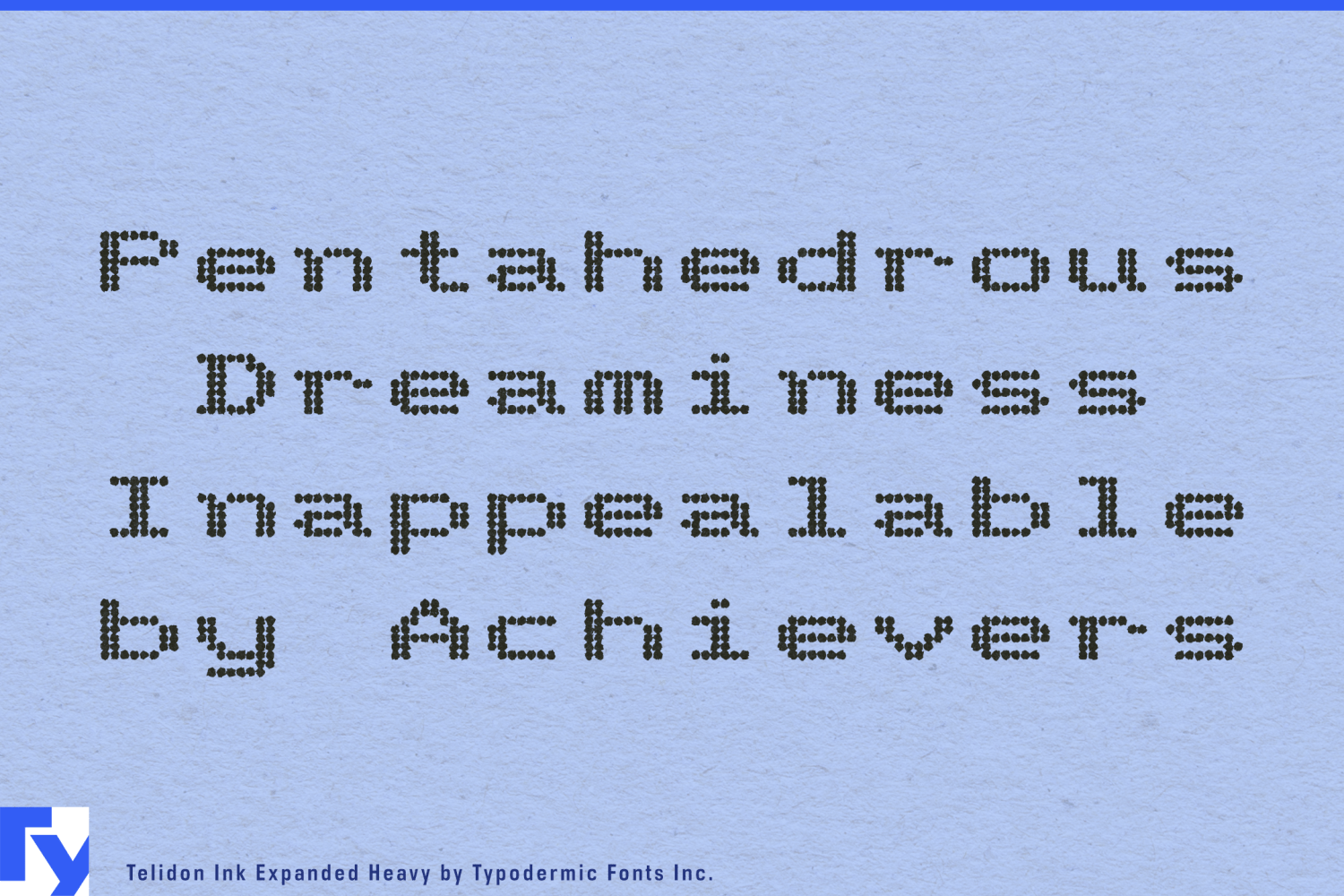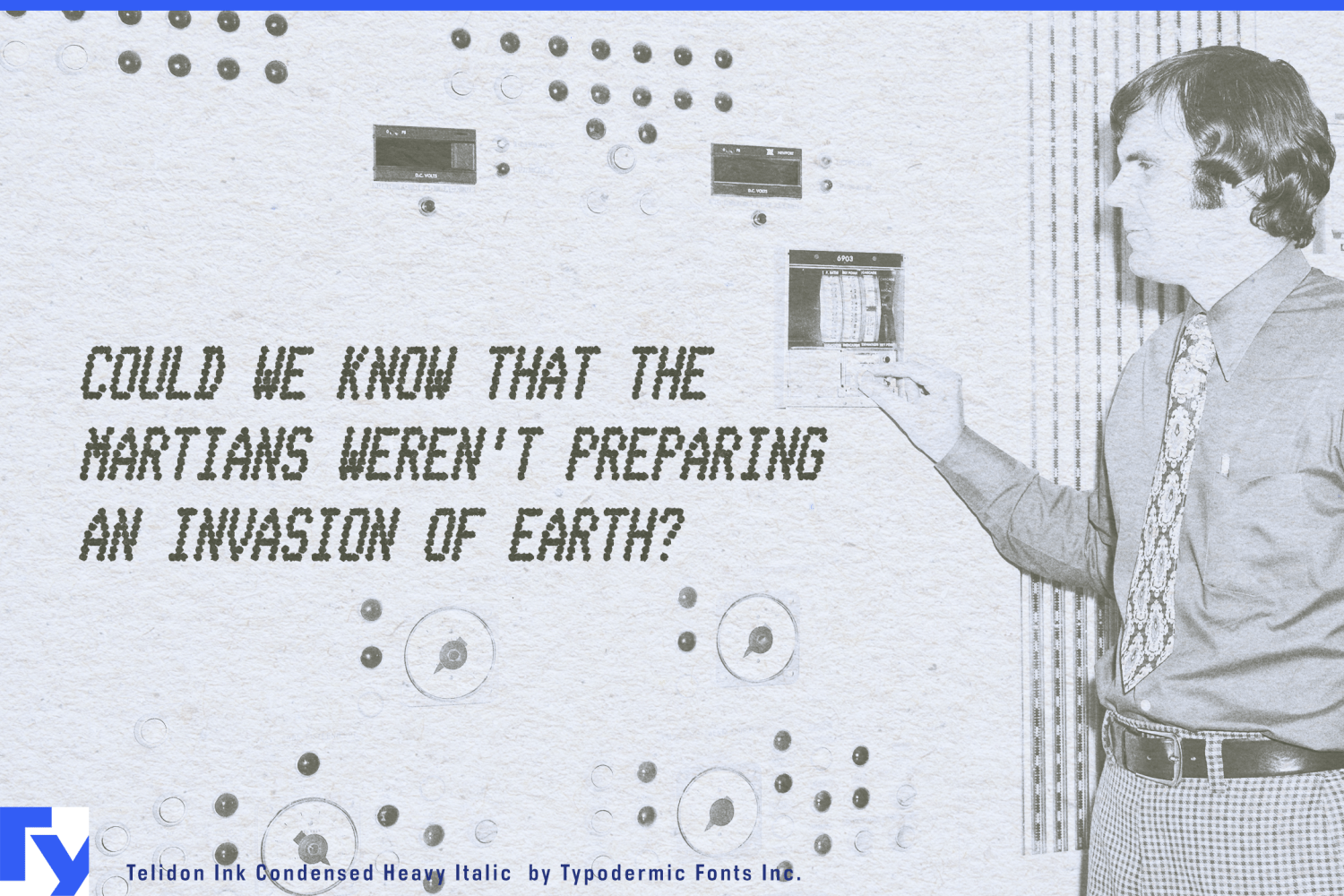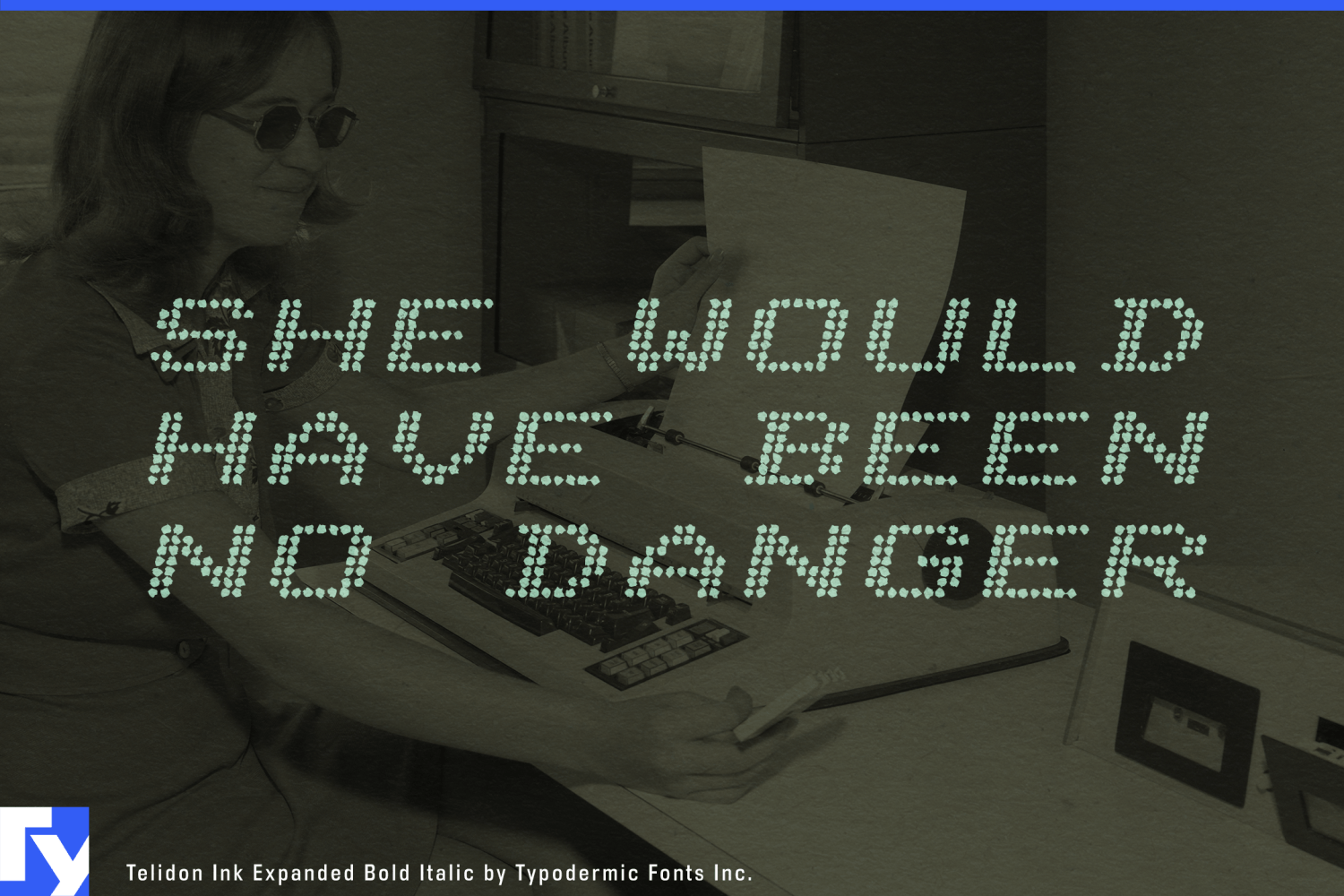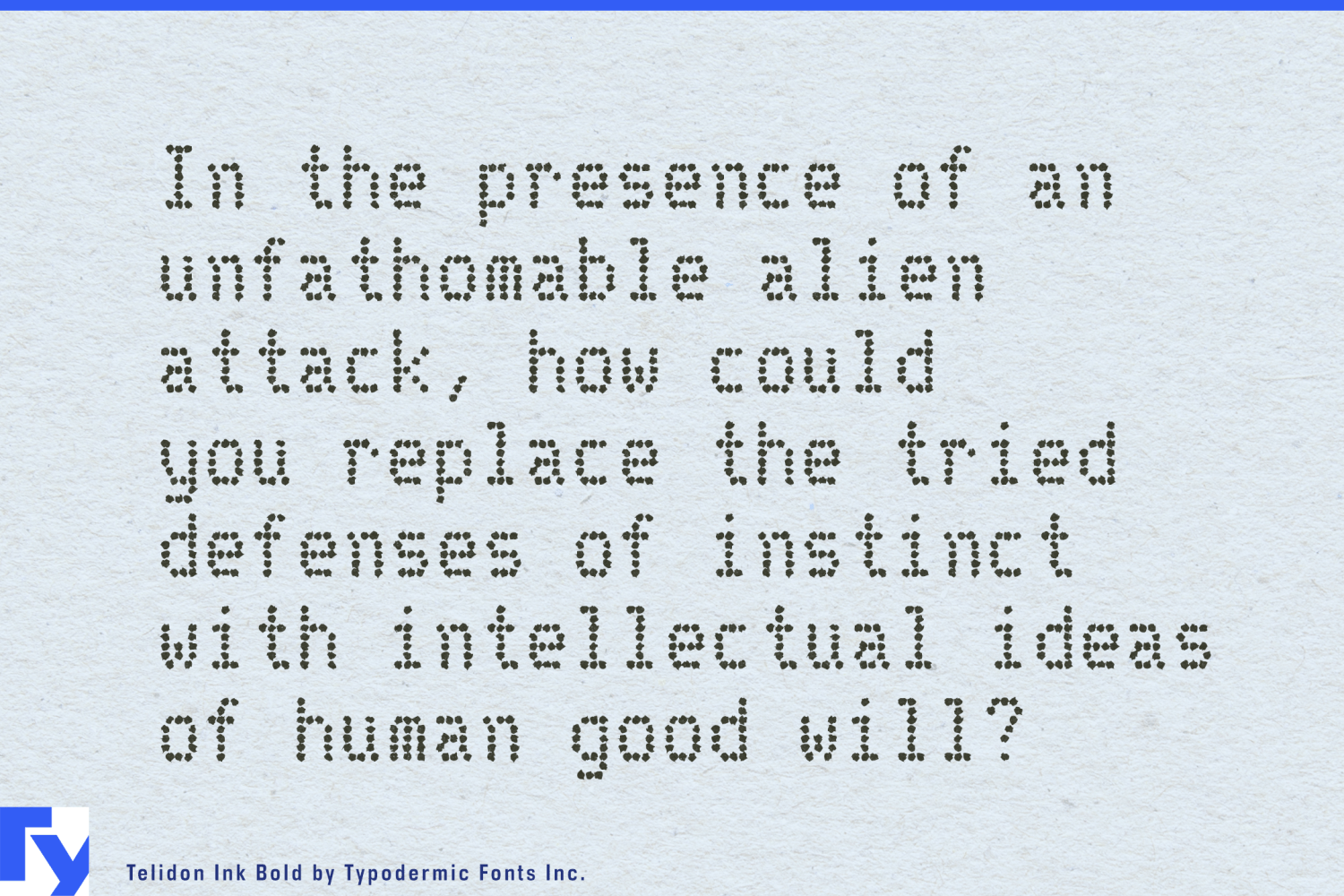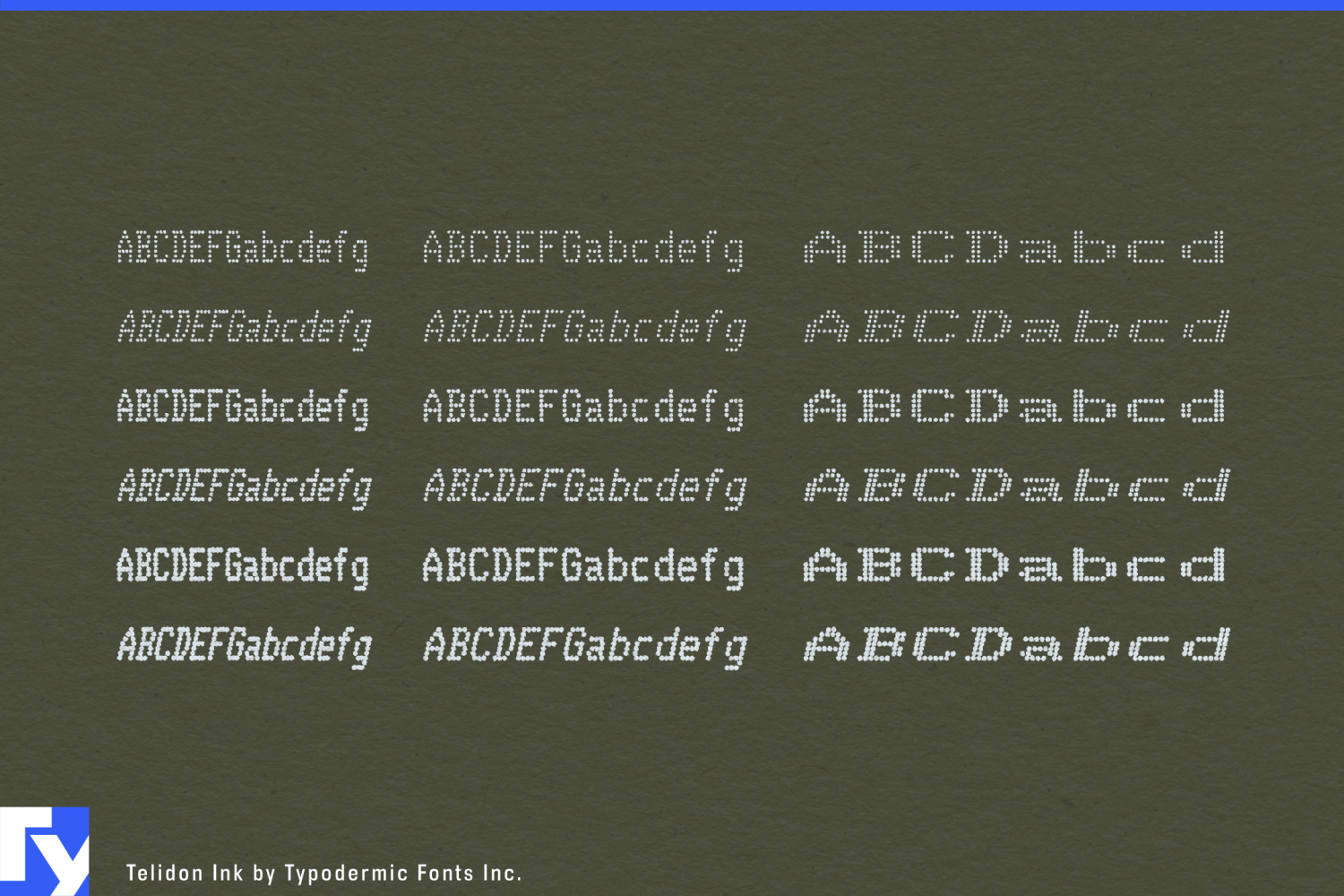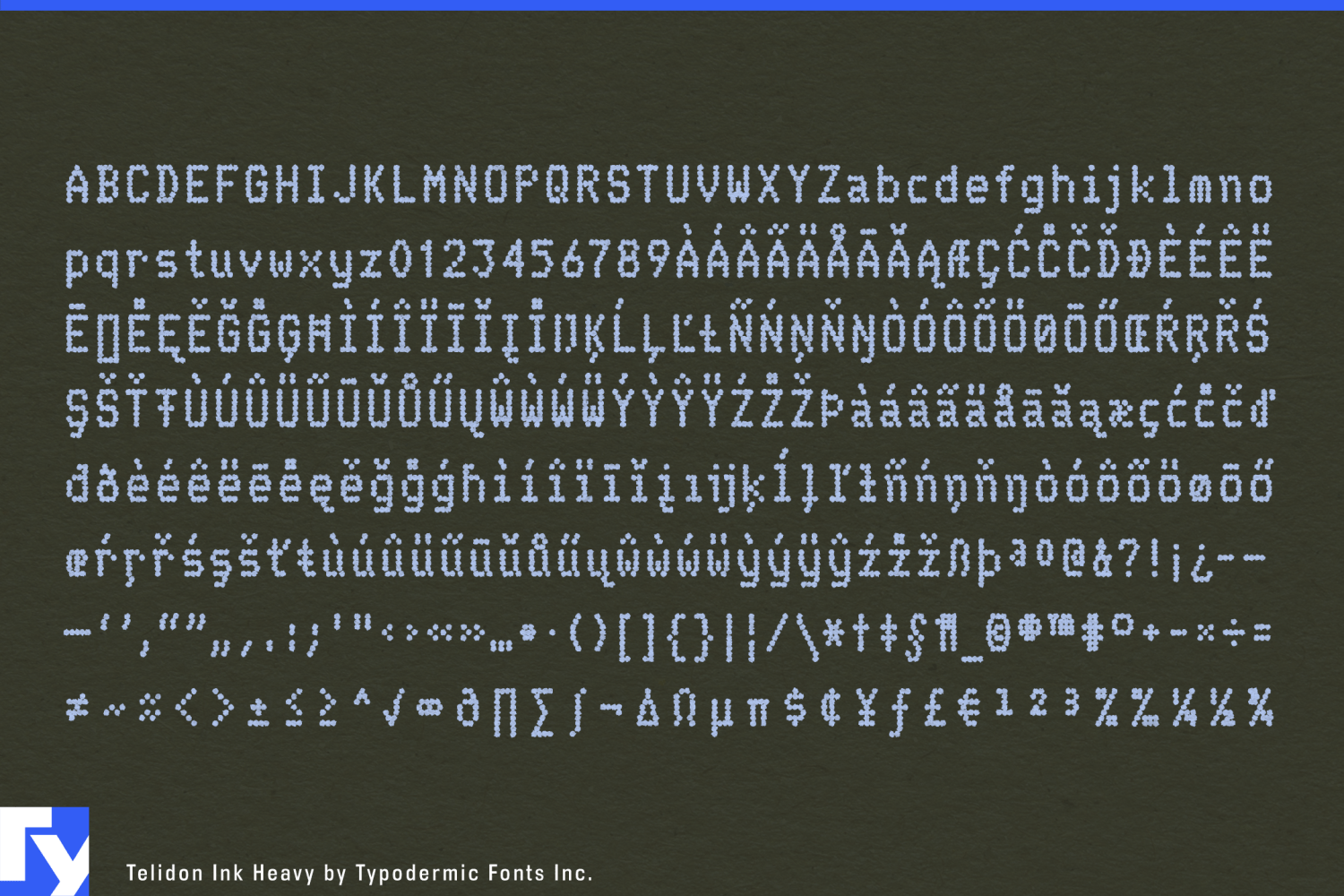
Telidon Ink Font Family by Typodermic
About:
Introducing Telidon Ink, the dot-matrix typeface that takes you back in time to the glory days of retro computing. With its upright and legible structure, Telidon Ink boasts a distinctive textured ink impression that will transport you back to the age of the dot-matrix printer.
Not only does Telidon Ink look retro, but it also has a fast and easy vibe that adds a sense of momentum to your phrases. And with its versatile range of widths, weights, and italics, you have the flexibility to create a unique and dynamic look for your designs.
But that’s not all—Telidon Ink also has a clean and straight-laced companion, Telidon, which complements its retro style perfectly. Together, these typefaces will give your designs a classic and timeless look that is sure to impress.
So if you’re looking to add a touch of vintage charm to your graphic design projects, Telidon Ink is the perfect choice. Let it transport you back in time to the golden age of computing and bring a touch of nostalgia to your designs.